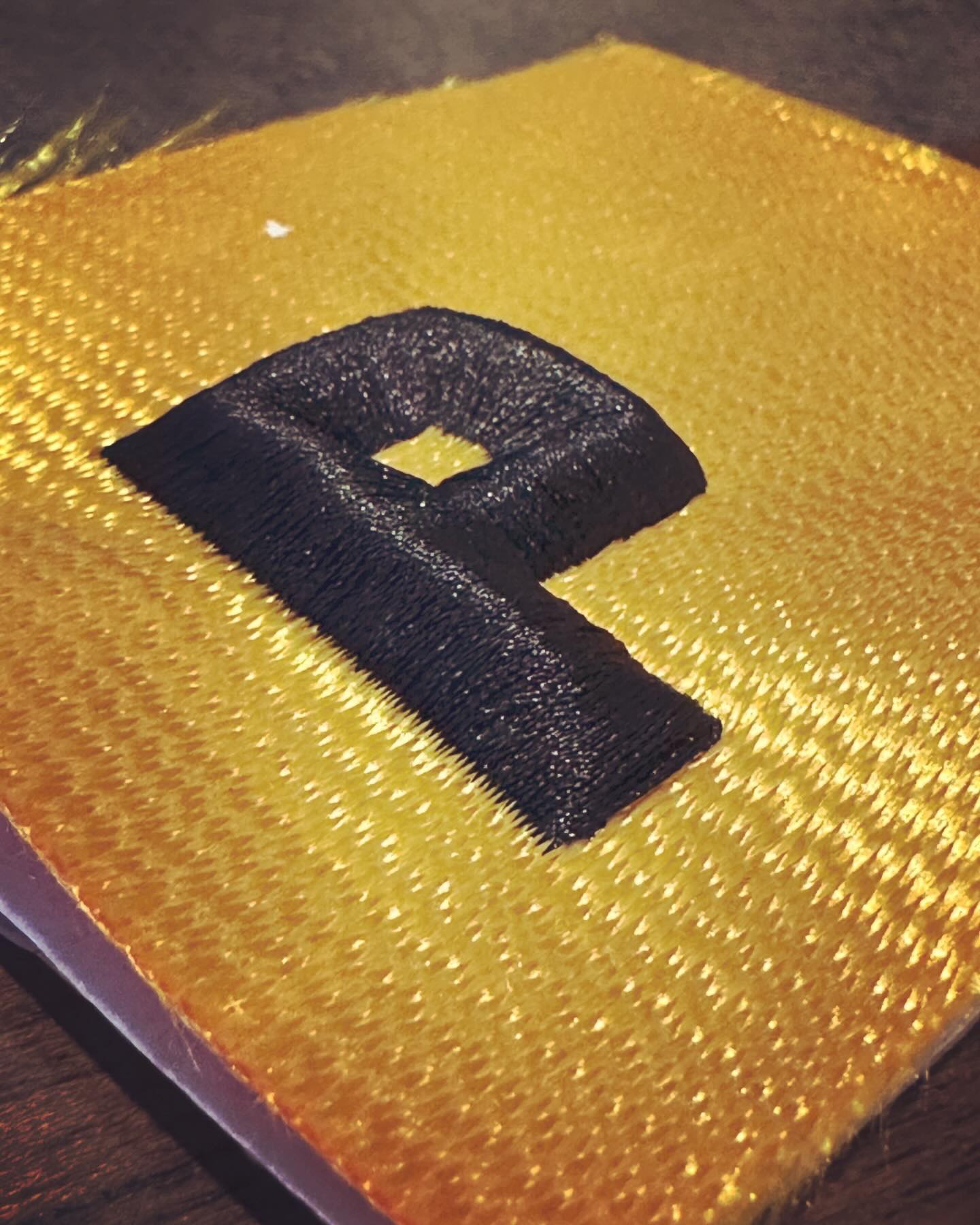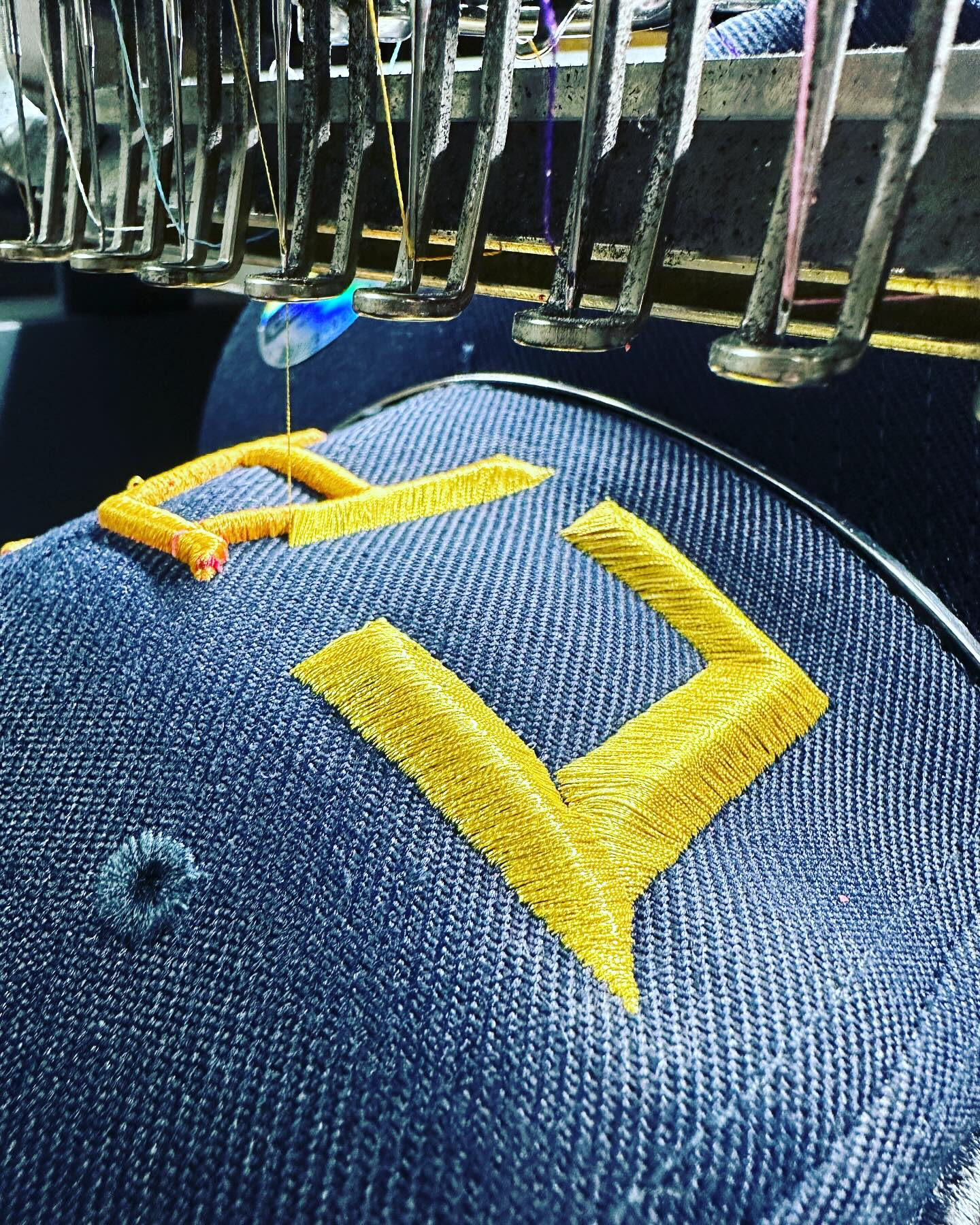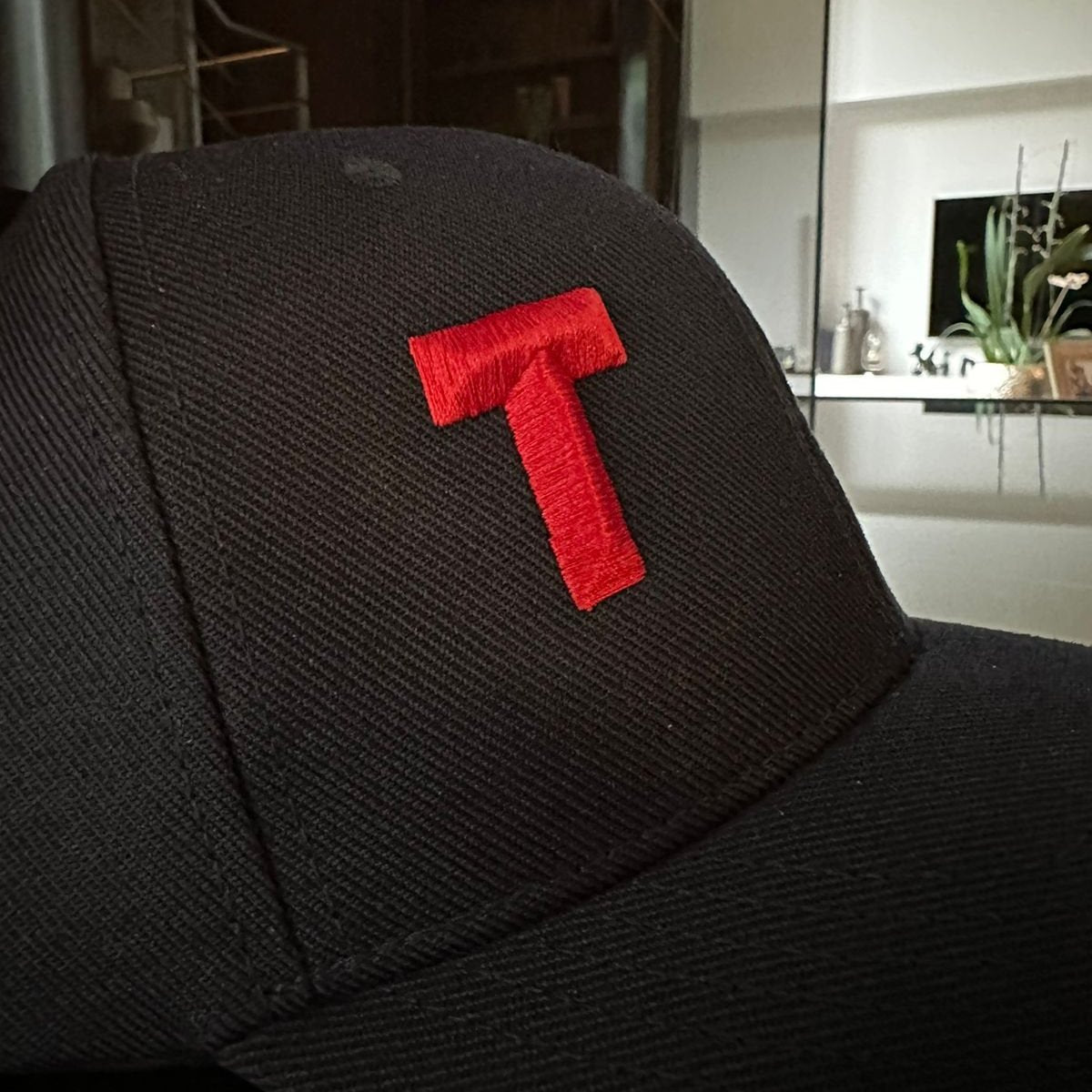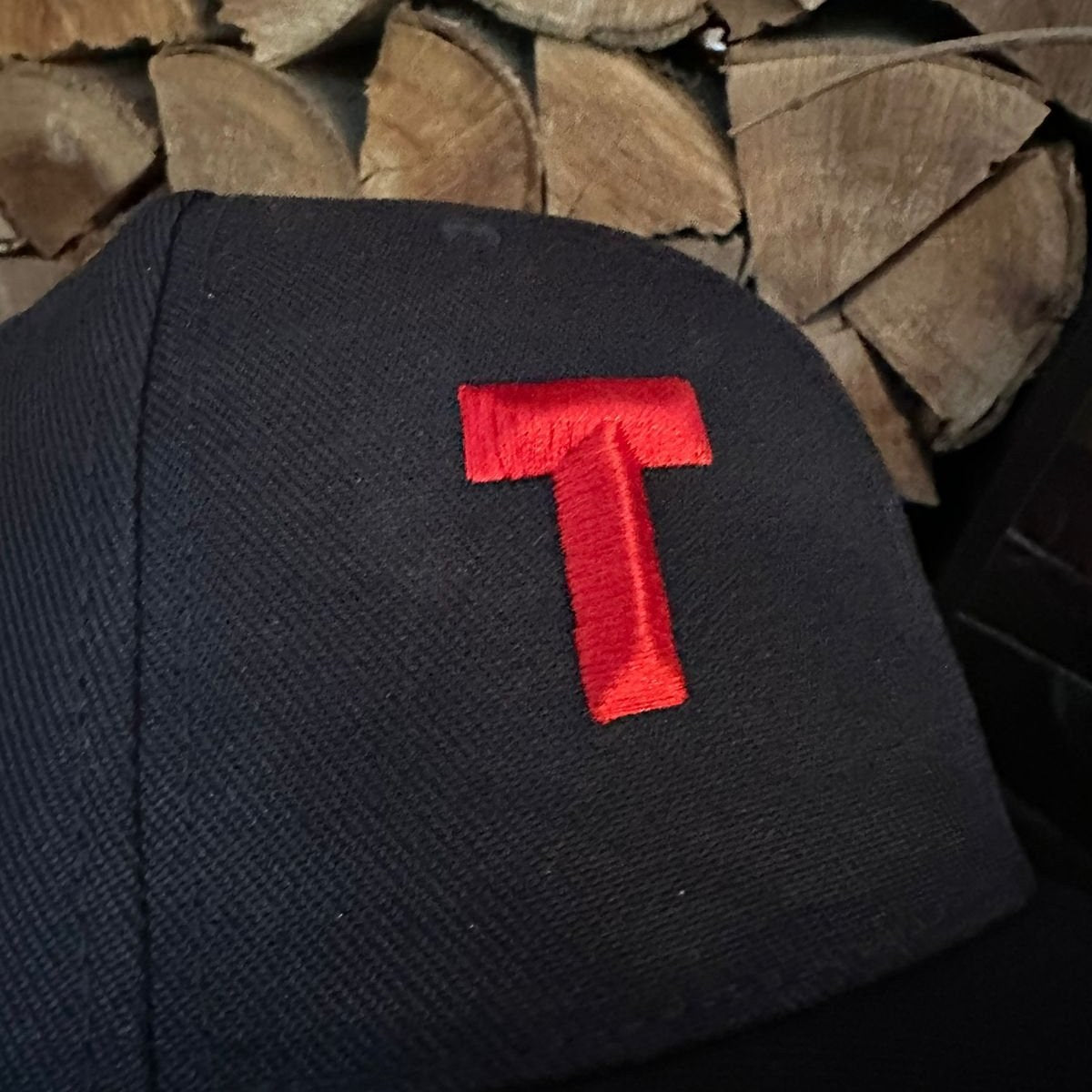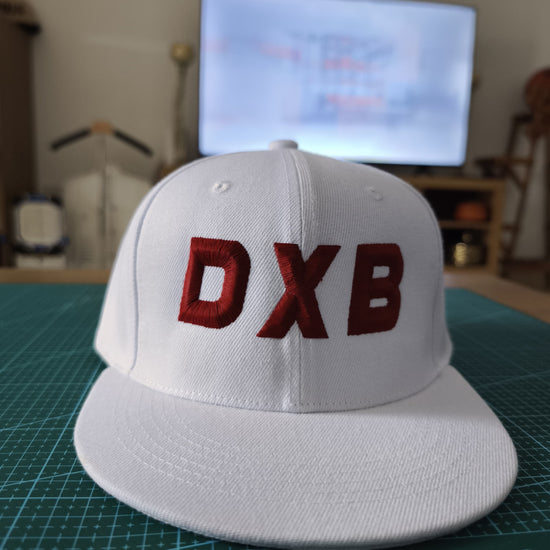
Faceted Threads: Diamond 3D Puff Font Embroidery Alphabet & Number Collection
Embrace precision and sparkle with Faceted Threads—a luxe embroidery collection where alphabets and numbers gleam like cut diamonds.
Inspired by the angular elegance of gemstones, this diamond font style features sharp, geometric stitching that mimics faceted light play, creating a bold, high-end finish for monograms, dates, or logos.
Each letter and numeral is meticulously embroidered with heavyweight threads, ensuring crisp lines and lasting durability on hats, .
Geometric Brilliance: Diamond-font stitching adds a modern, jewelry-inspired edge to traditional embroidery.
Luxury Customization: Ideal for upscale branding, anniversary gifts, or personalizing statement pieces with initials, jersey numbers, or milestones.
Versatile Sophistication: Pair with streetwear for contrast or elevate tailored blazers and denim—this font transcends trends.
Small-Biz Craftsmanship: Every stitch is guided by artisan, ensuring pristine alignment and depth.
From sleek black-on-black designs to metallic-thread accents, Faceted Threads turns text into wearable art. Because even letters deserve to shine.